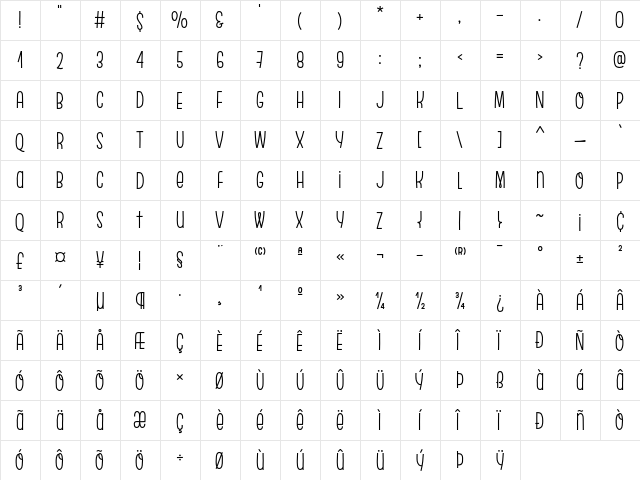
Escalope Soft
| Foundry | Julia Martinez Diana, Antipixel |
| Designer | Julia Martinez Diana, Antipixel |
Design Context for Escalope Typeface
Escalope offers clean, dependable letterforms without strong stylistic allegiance, making it a practical choice for designers who need flexibility.